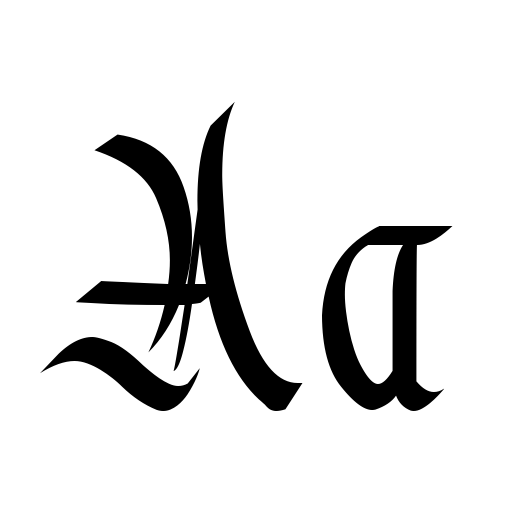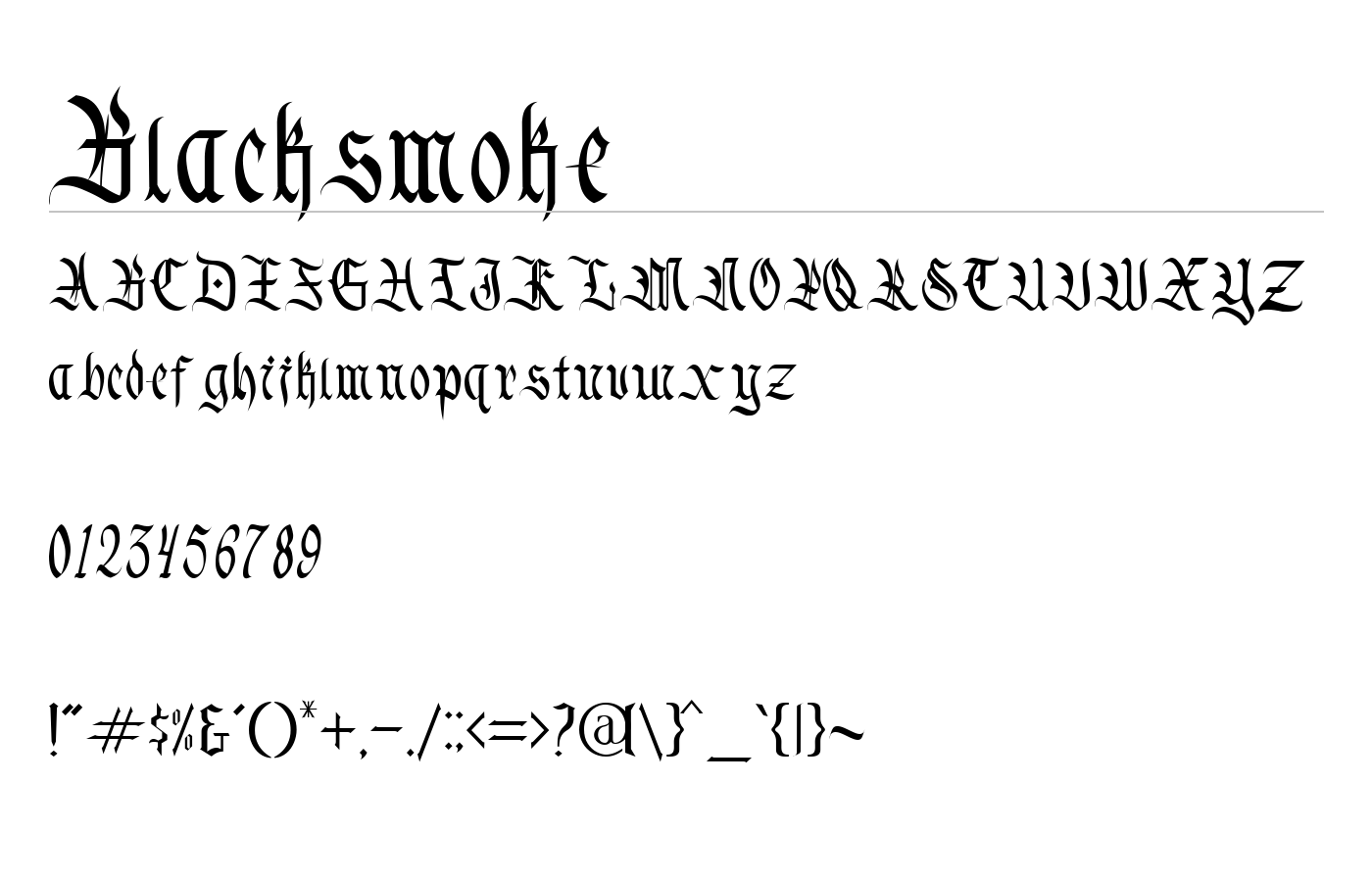
Blacksmoke is a bold blackletter serif font that features sharp, dramatic strokes with high contrast between thick and thin lines. Its ornate, gothic style evokes a vintage, medieval feel, ideal for creating strong, historic, or mysterious branding and editorial headlines. This font works best in display settings where its intricate details can stand out and add an elegant yet edgy character.
Blacksmoke Font
About Blacksmoke Font